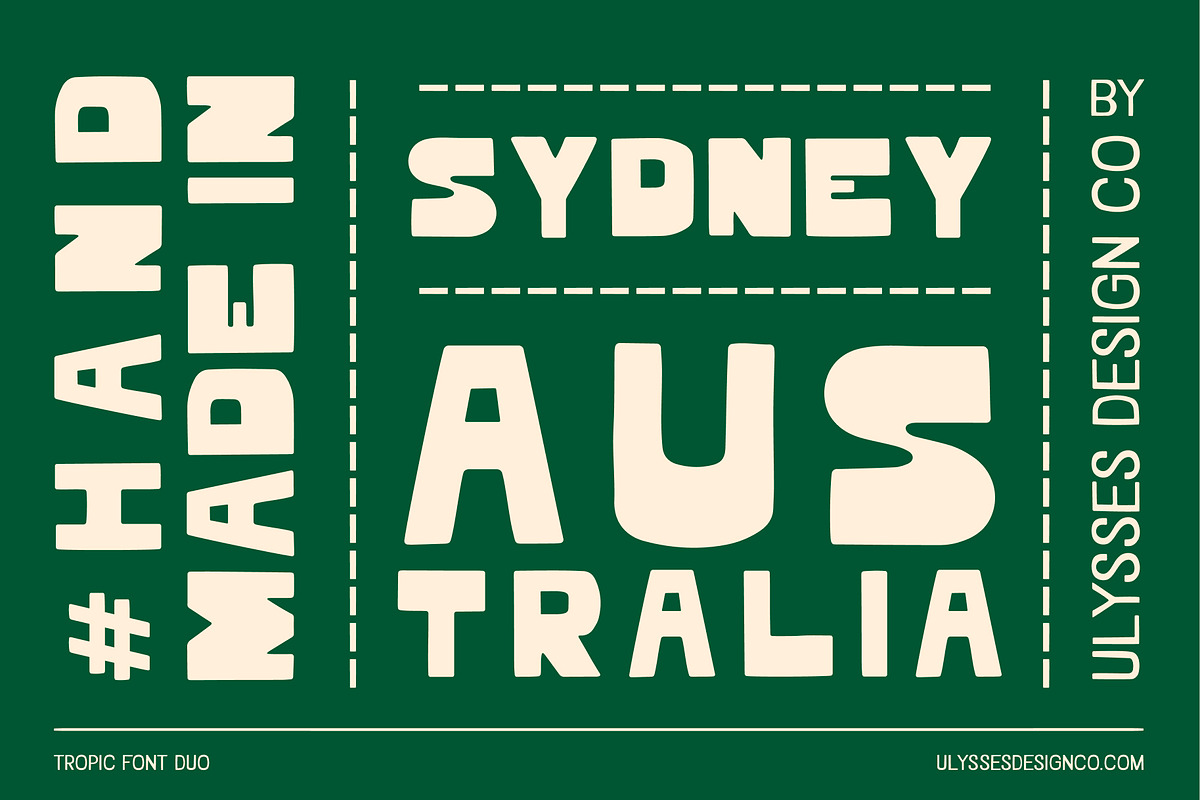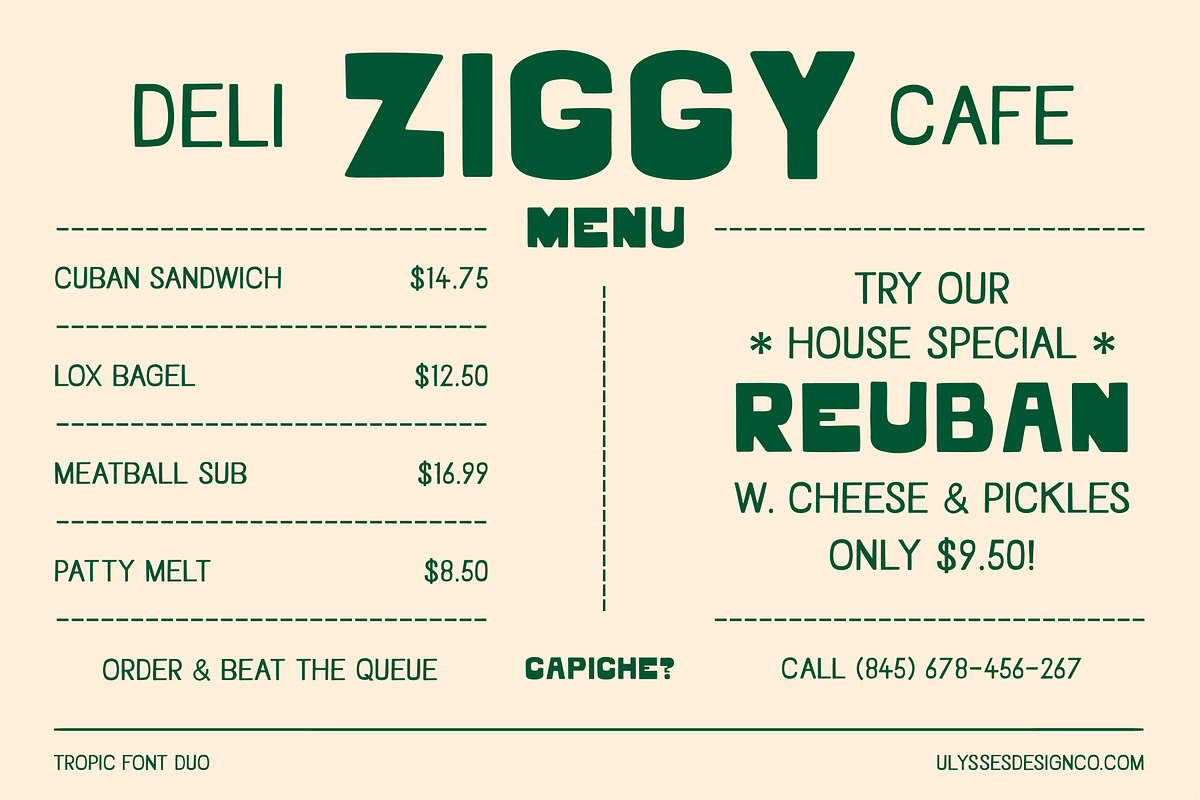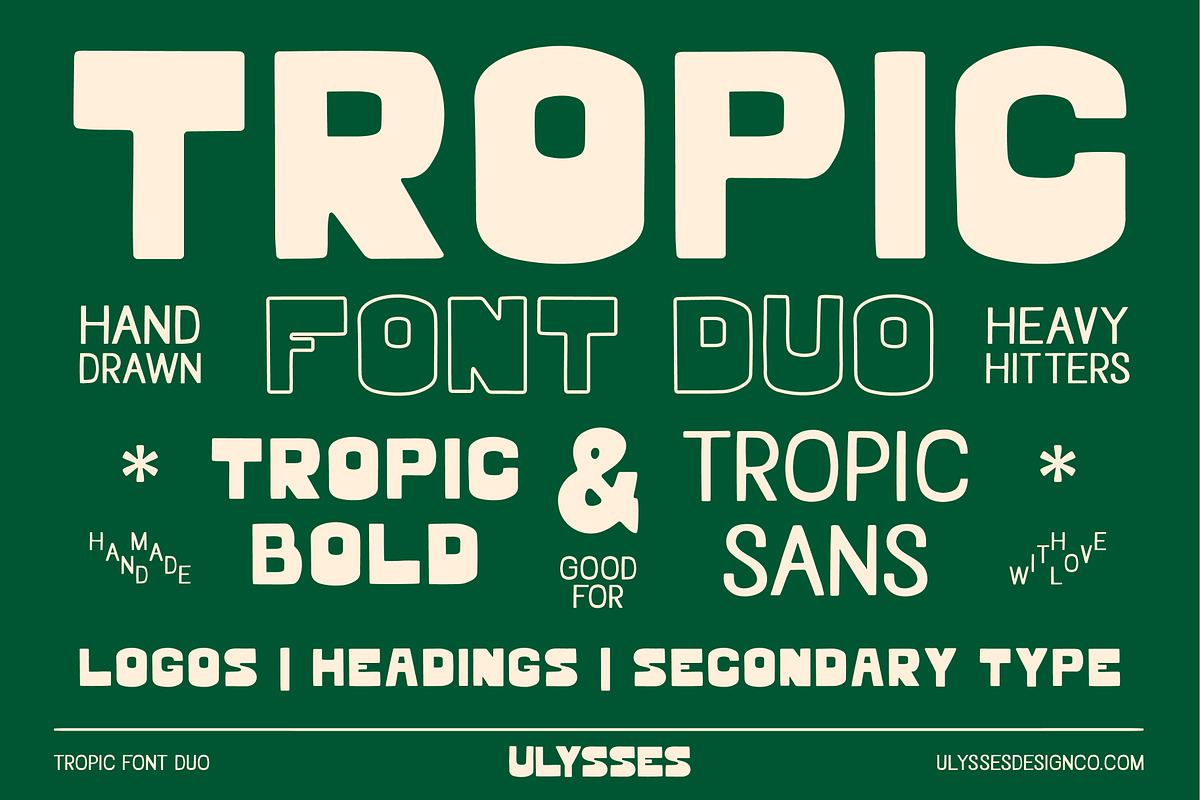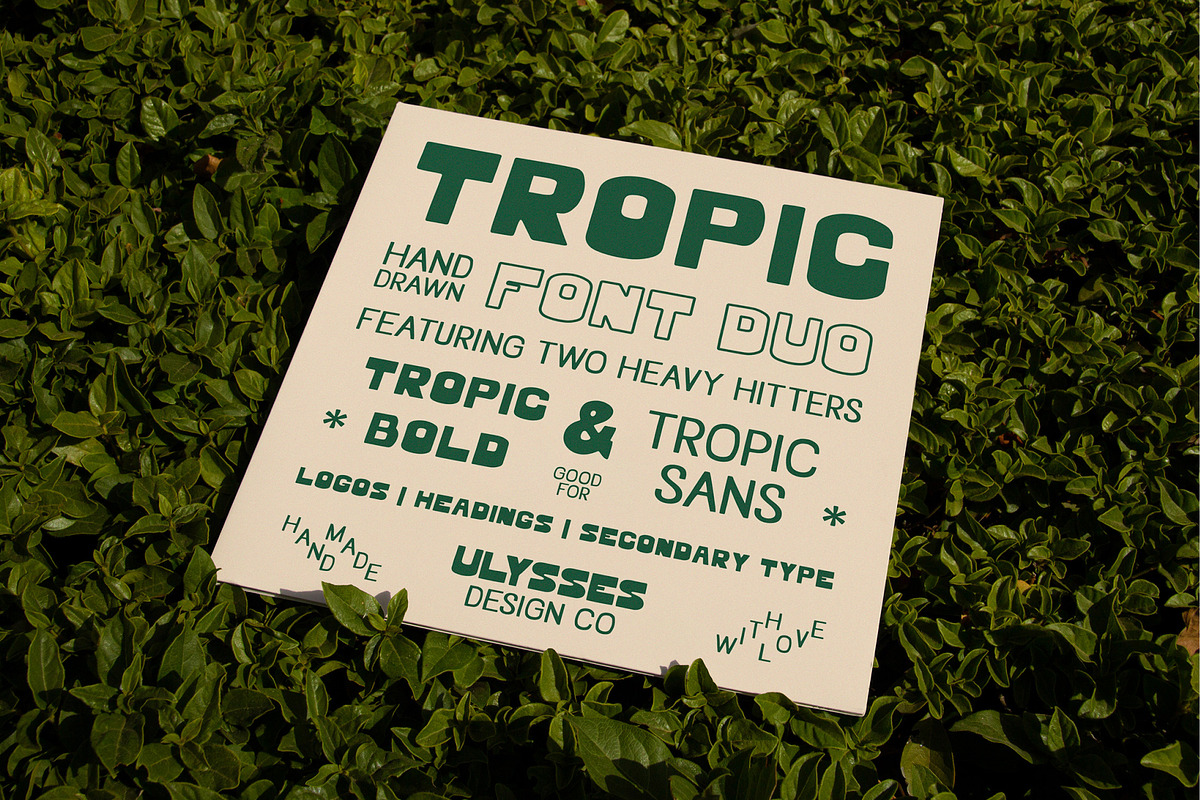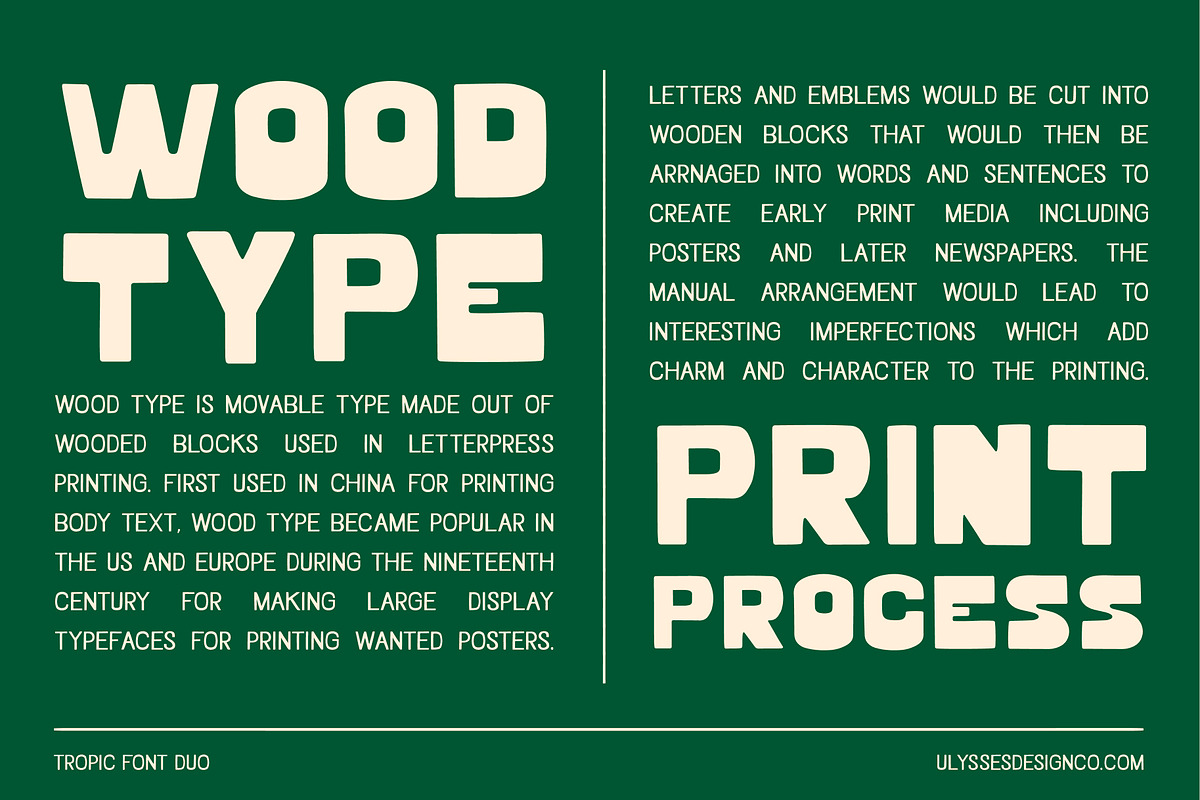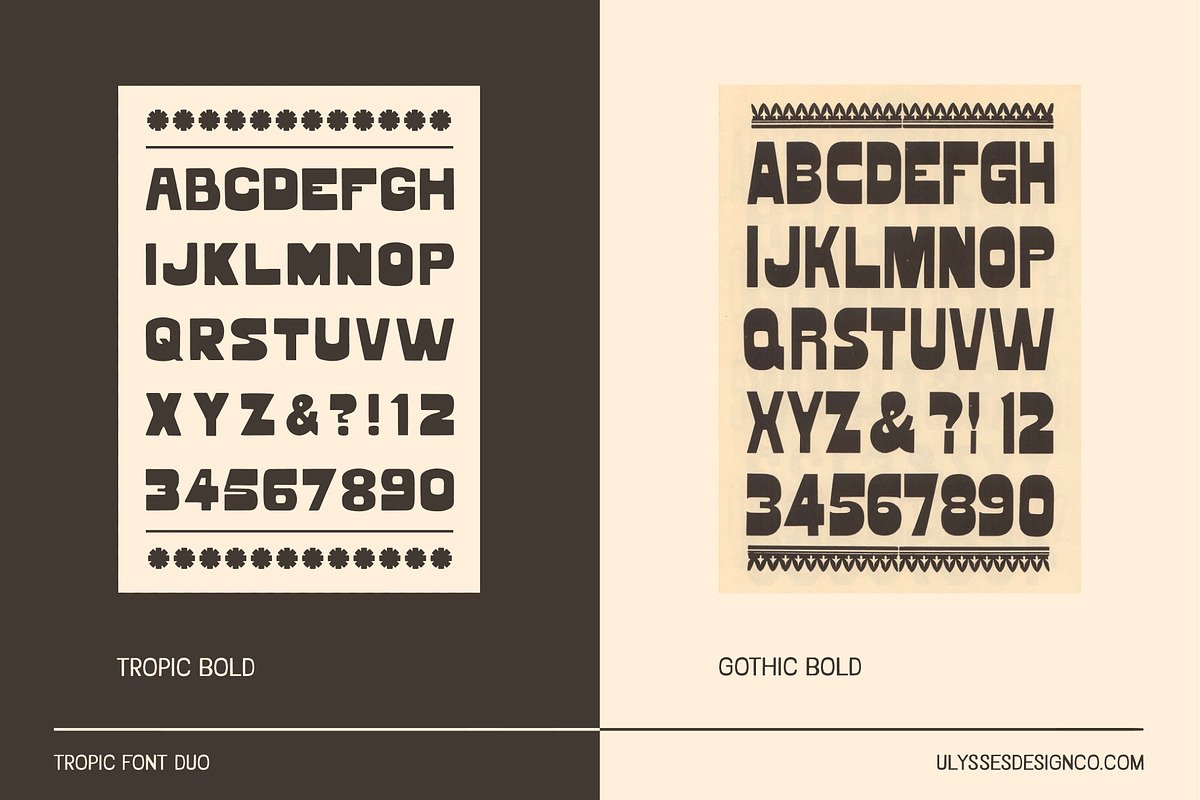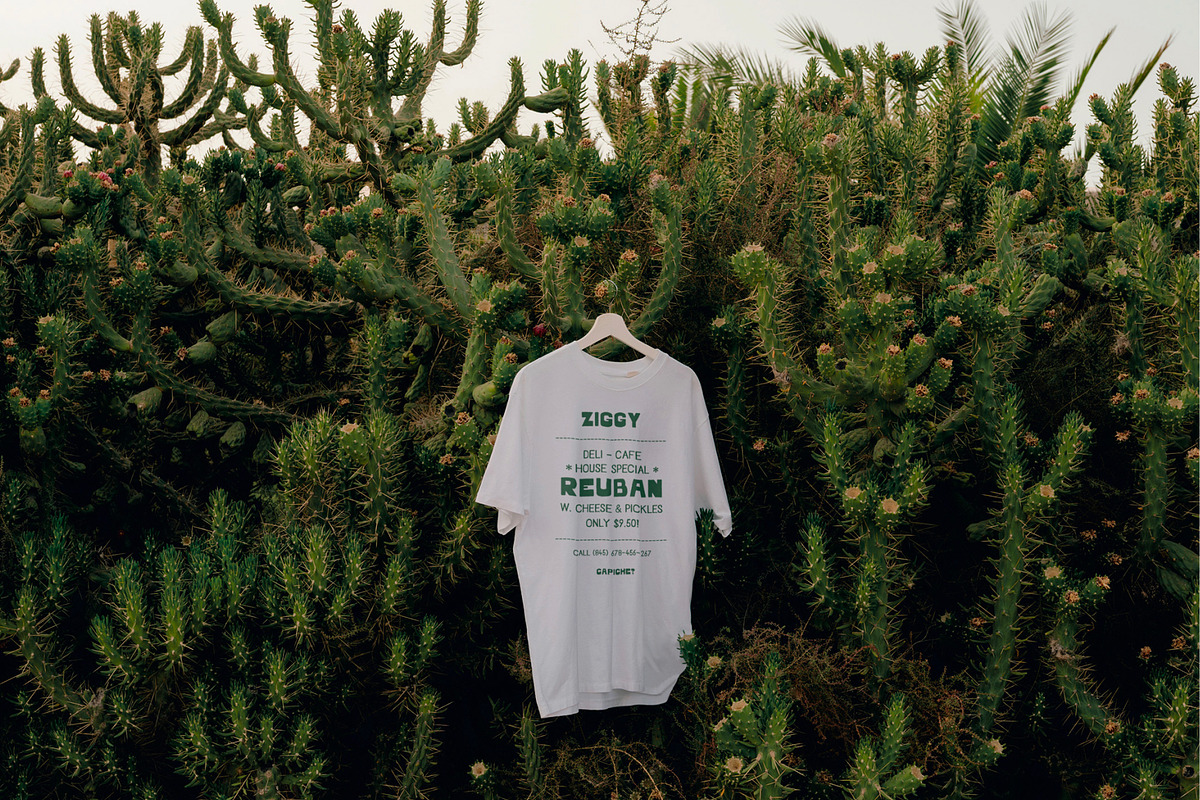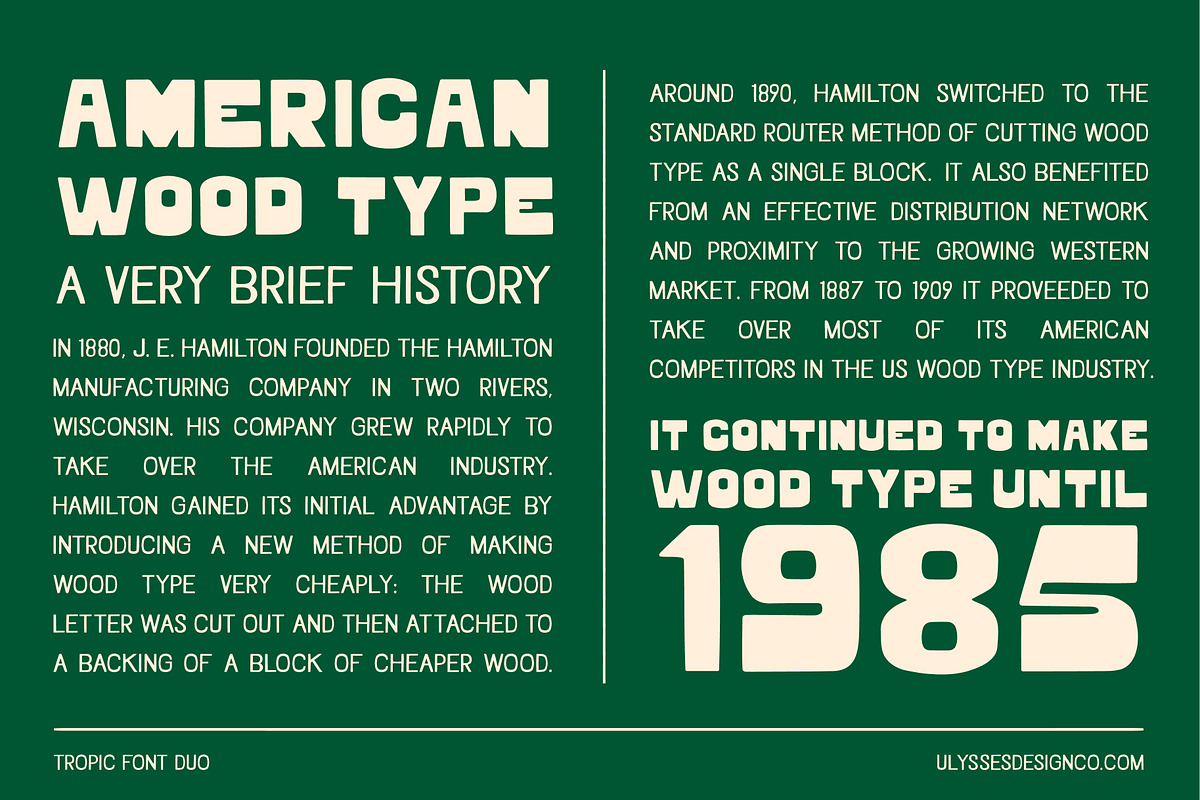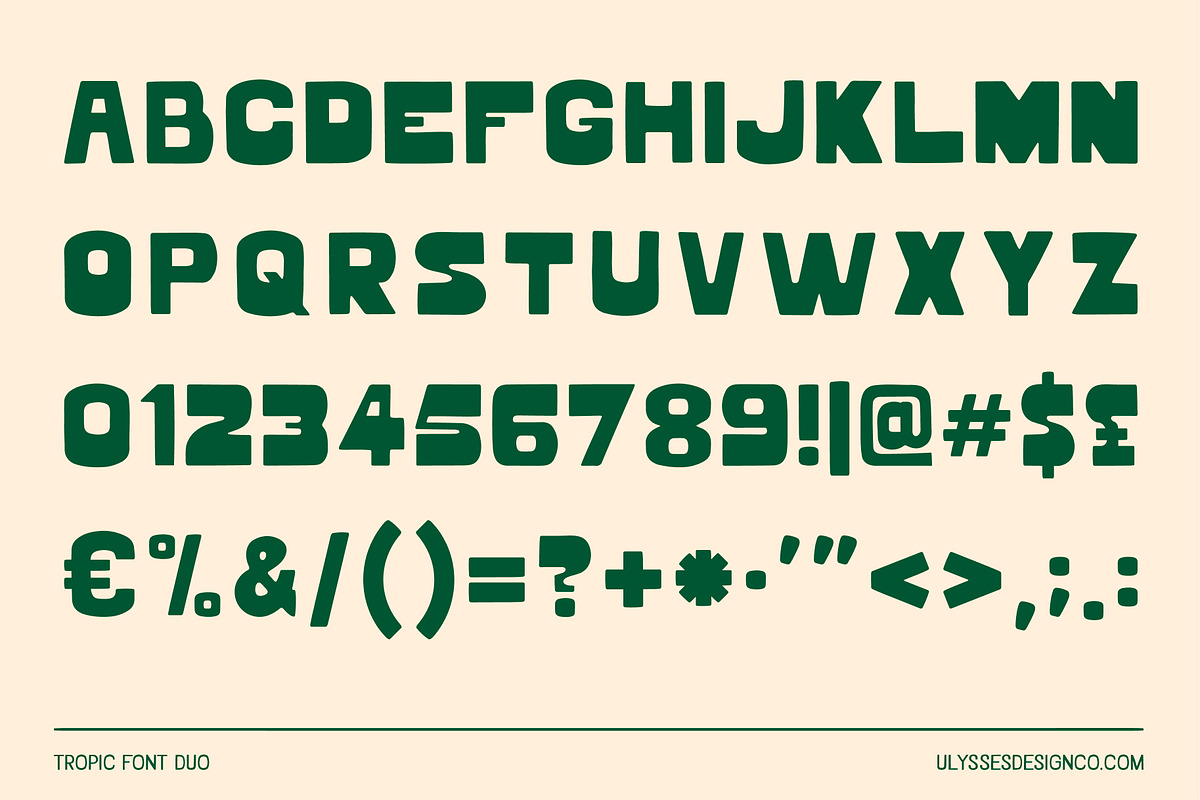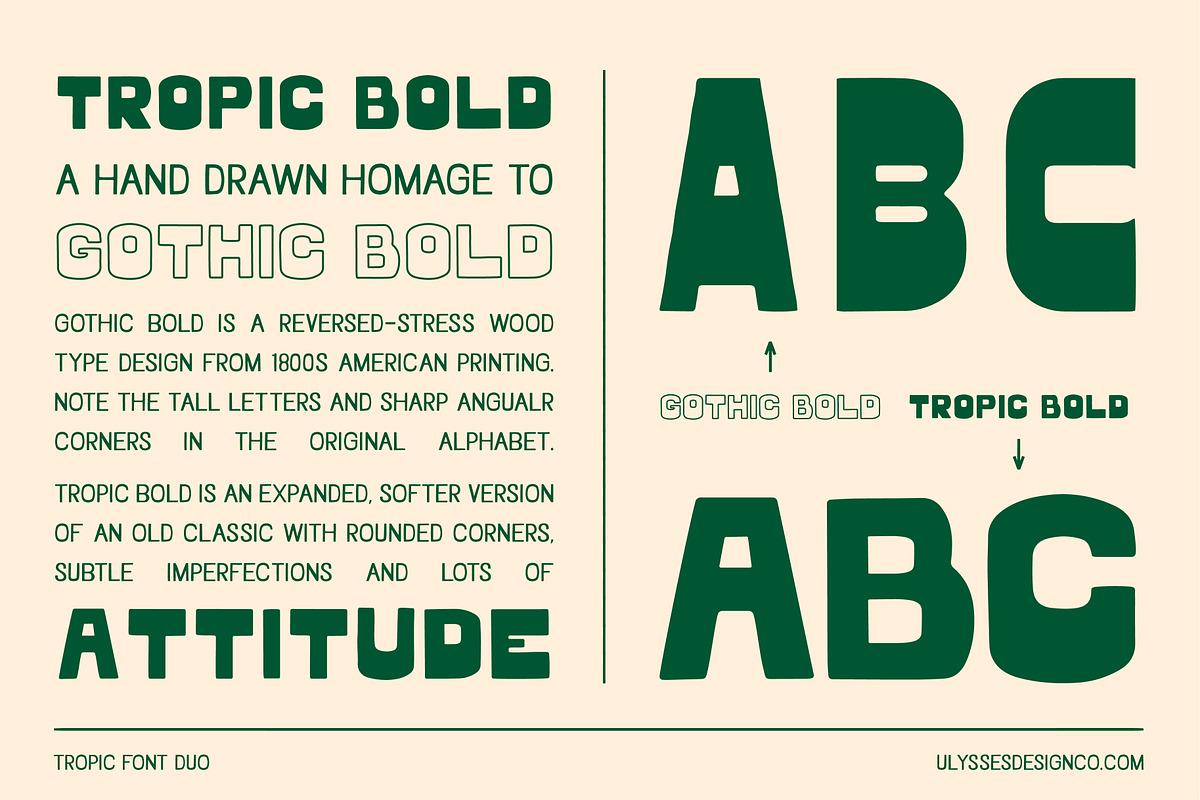
Tropic - Hand Drawn Font Duo
Tropic Font Duo is a hand drawn typeface pairing from brand identity design studio Ulysses Design Co inspired by vintage wood type. Combine Tropic Bold and Tropic Sans to create bold branding, apparel and collateral design.
Tropic Bold is a hand drawn hommage to Gothic Bold. Gothic Bold is a reversed-stress wood type design from 1800s American printing that features tall letters and sharp angular corners. Tropic Bold is an expanded, softer version of an old classic with rounded corners, subtle imperfections and lots of attitude.
Tropic Font Duo comes in 2 styles giving you the flexibility to create dynamic and cohesive design work for your projects. Tropic Sans is an all caps hand drawn sans serif typeface that is the perfect pairing for Tropic Bold. Use the big, bold and bodacious Tropic Bold for display and compliment it with the more subtle Tropic Sans to create balanced and impactful design work.